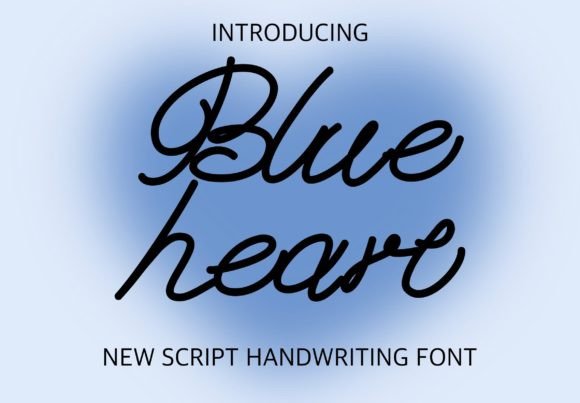
Blue Heart Font
Step into a world of elegance and charm with the Blue Heart font, a captivating creation by KisbyArt. This enchanting script dances across the page, evoking a sense of timeless romance and whimsical flair. Whether you're crafting heartfelt wedding invitations, designing eye-catching digital content, or adding a touch of grace to presentations, the Blue Heart font is the perfect choice for adding a personal touch to your creative projects.
Unleash your inner artist and let your imagination soar as you explore the endless possibilities of this versatile font. With its delicate curves and flowing lines, the Blue Heart font captures the essence of love, joy, and celebration. Its intricate details add a touch of sophistication, making it an ideal choice for creating stunning wedding invitations, save-the-date cards, and other special event stationery.
Beyond weddings, the Blue Heart font shines in a myriad of creative applications. Bring your digital designs to life with its elegant charm, or add a touch of whimsy to presentations and social media graphics. The font's versatile nature lends itself to a wide range of projects, from heartfelt love letters to captivating posters and flyers.
Immerse yourself in the beauty of the Blue Heart font and discover a world of creative possibilities. Its effortless charm and timeless appeal will transform your projects into captivating expressions of art. Whether you're a seasoned designer or just starting your creative journey, the Blue Heart font is your perfect companion, ready to add a touch of magic to every word you write.